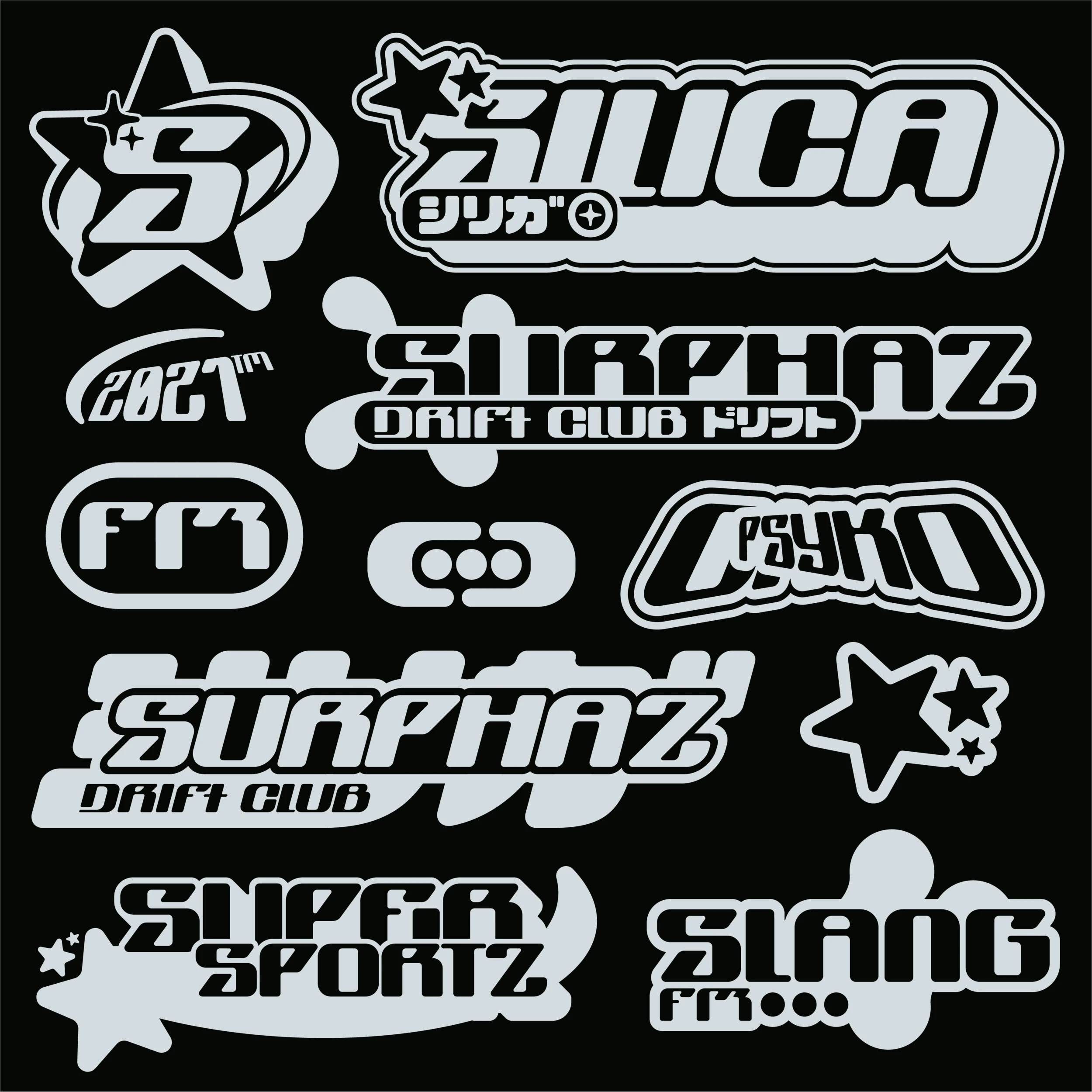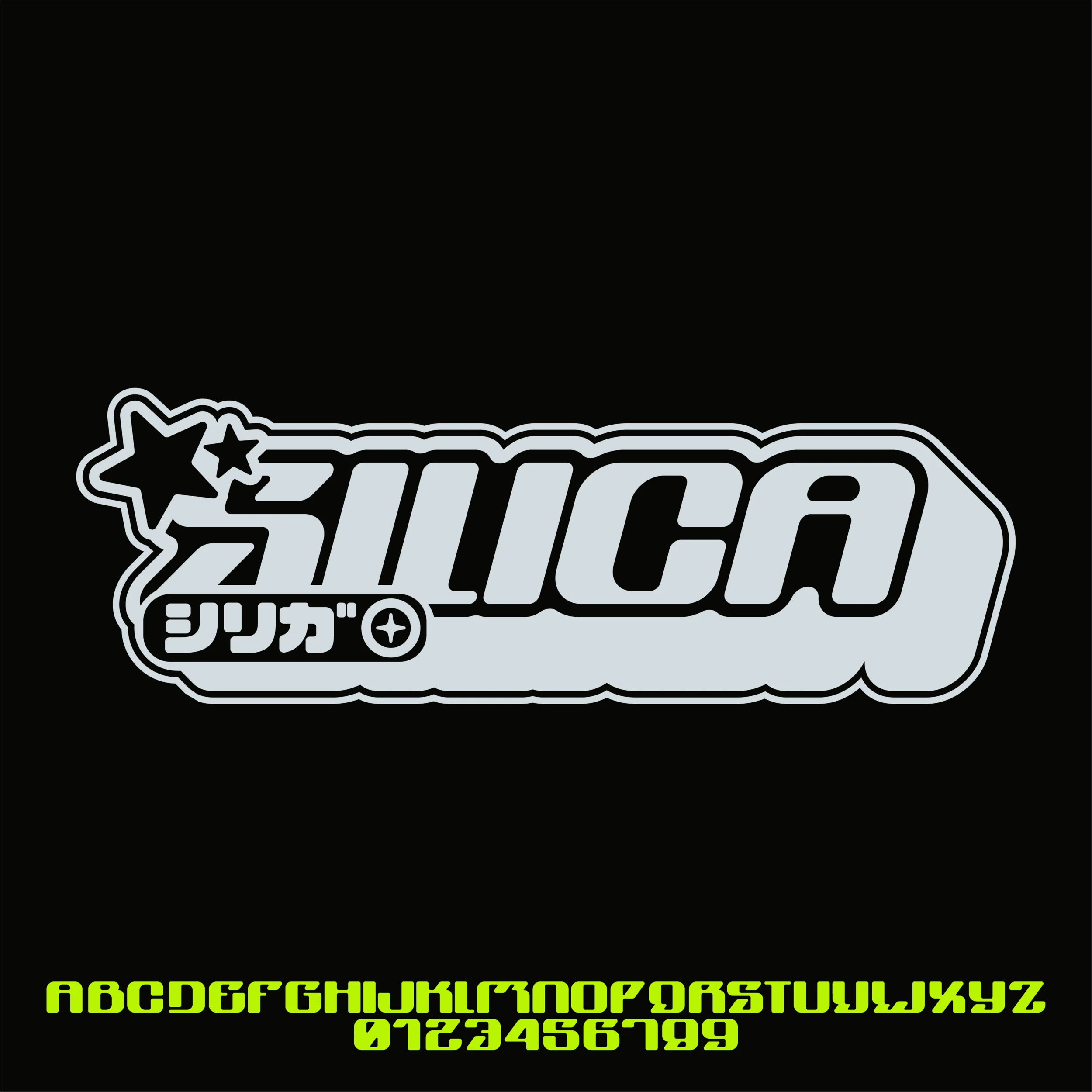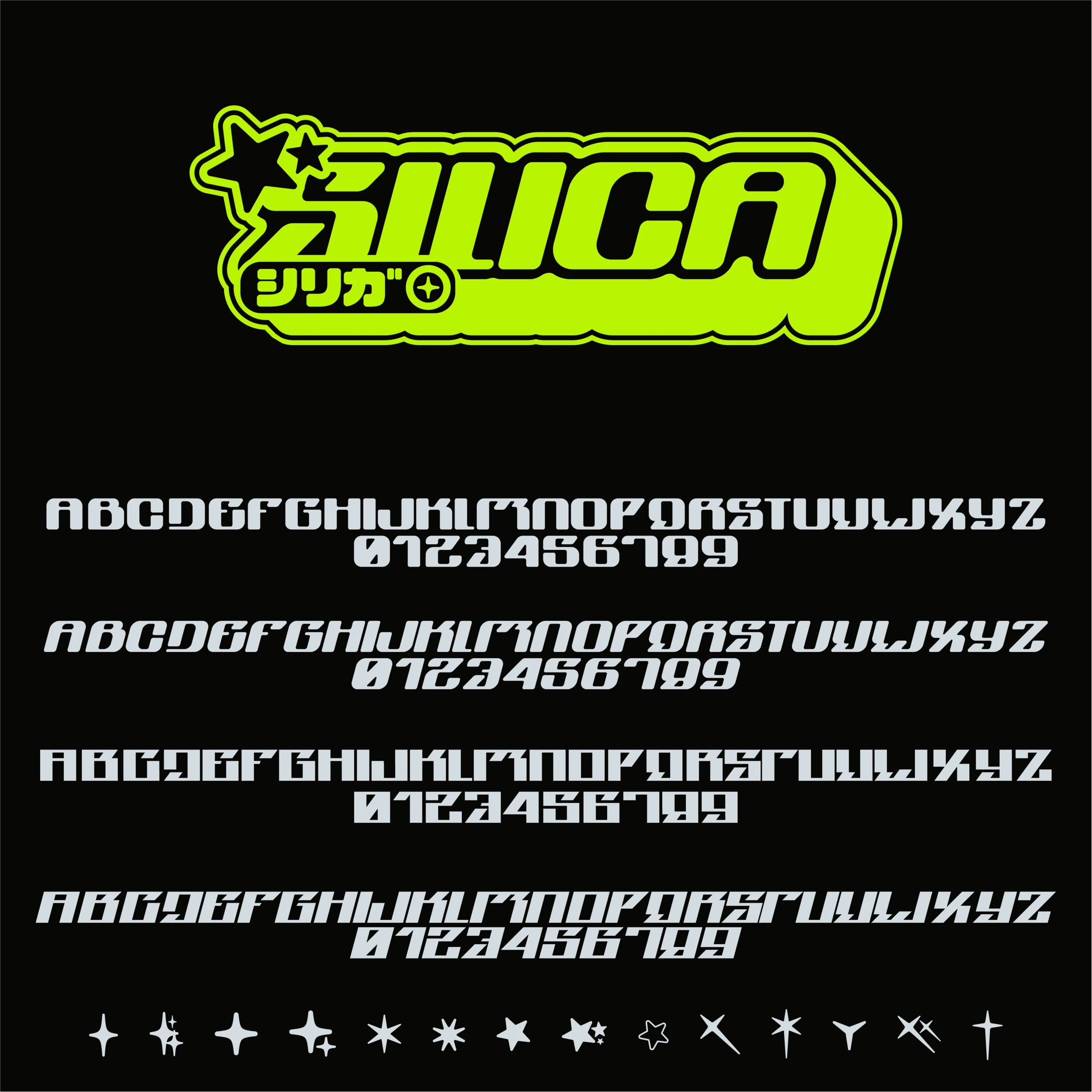
Meet Silica Typeface, a sans-serif font family built for clean, modern logo design with a subtle Y2K influence. Whether you’re crafting brand identities or digital graphics, this versatile typeface delivers a crisp, professional look that stands out.
Silica Typeface is a complete font family designed for designers who want a sleek, contemporary sans-serif with a touch of retro flair. It includes four distinct styles, plus bonus star vectors and glyphs, all in easy-to-use .otf and .ai files. Perfect for logos, headlines, and branding projects.
- ✅ Four Font Styles → Gives you flexibility for headers, subheads, and body text in one package.
- ✅ Complete Character Set (A-Z, 0-9) → Covers all your typography needs without missing a glyph.
- ✅ Bonus Star Vectors & Glyphs → Adds decorative elements to enhance your designs instantly.
Silica Typeface stands out because it combines a clean sans-serif aesthetic with a subtle Y2K vibe, making it perfect for modern retro-inspired projects. The included bonus vectors save you time, and the multiple styles give you creative freedom without extra cost. Plus, it’s an instant download, so you can start designing right away.